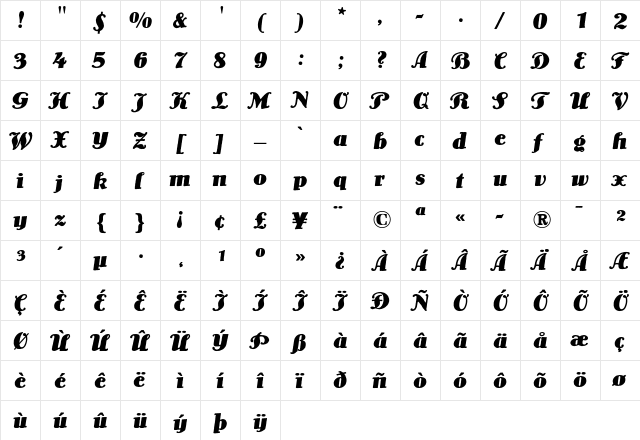
Lo-Type Medium Italic
Design Context for Lo-Type Typeface
Lo-Type is a composed and adaptable typeface that performs quietly and consistently across a wide range of design contexts. The slanted form adds forward momentum and visual energy.